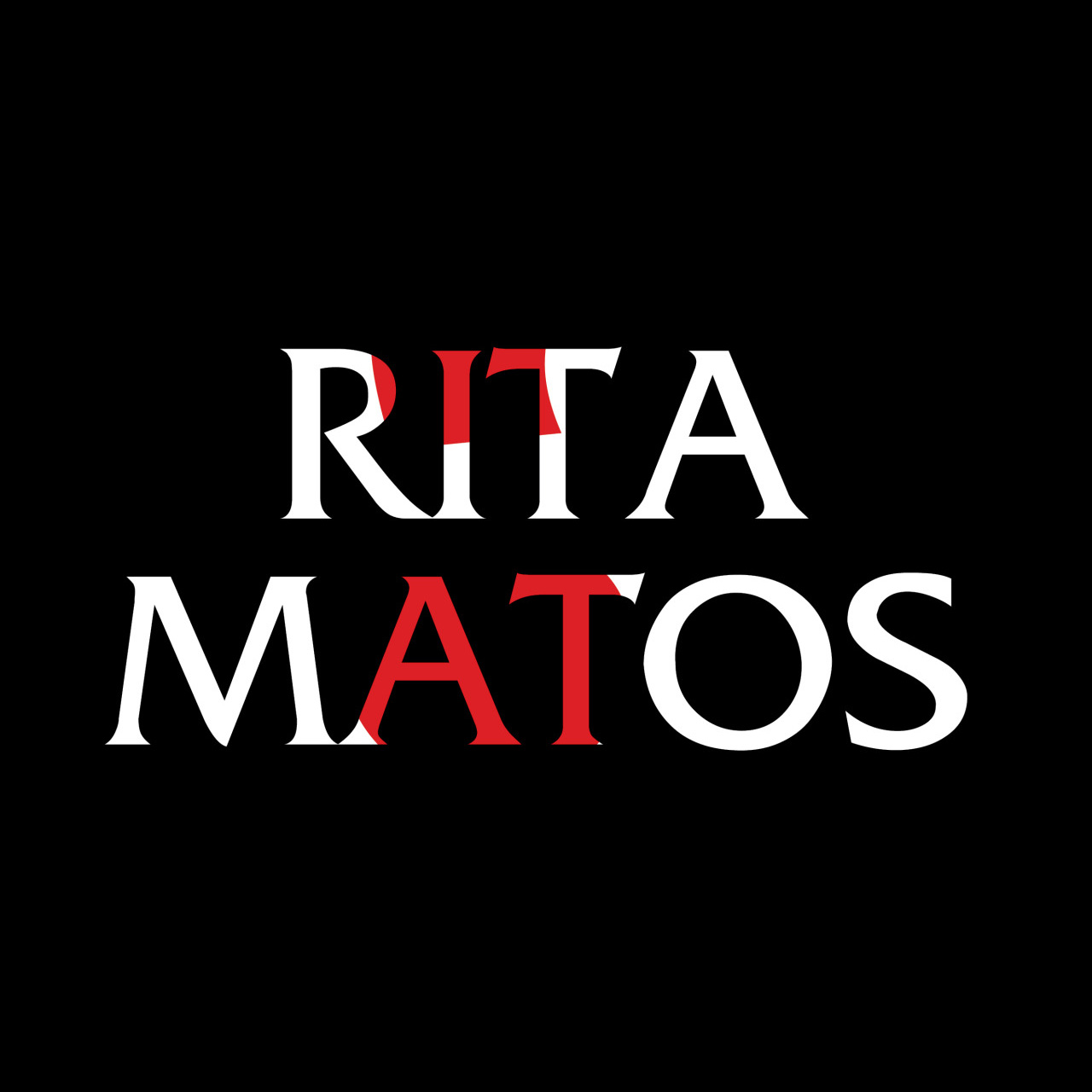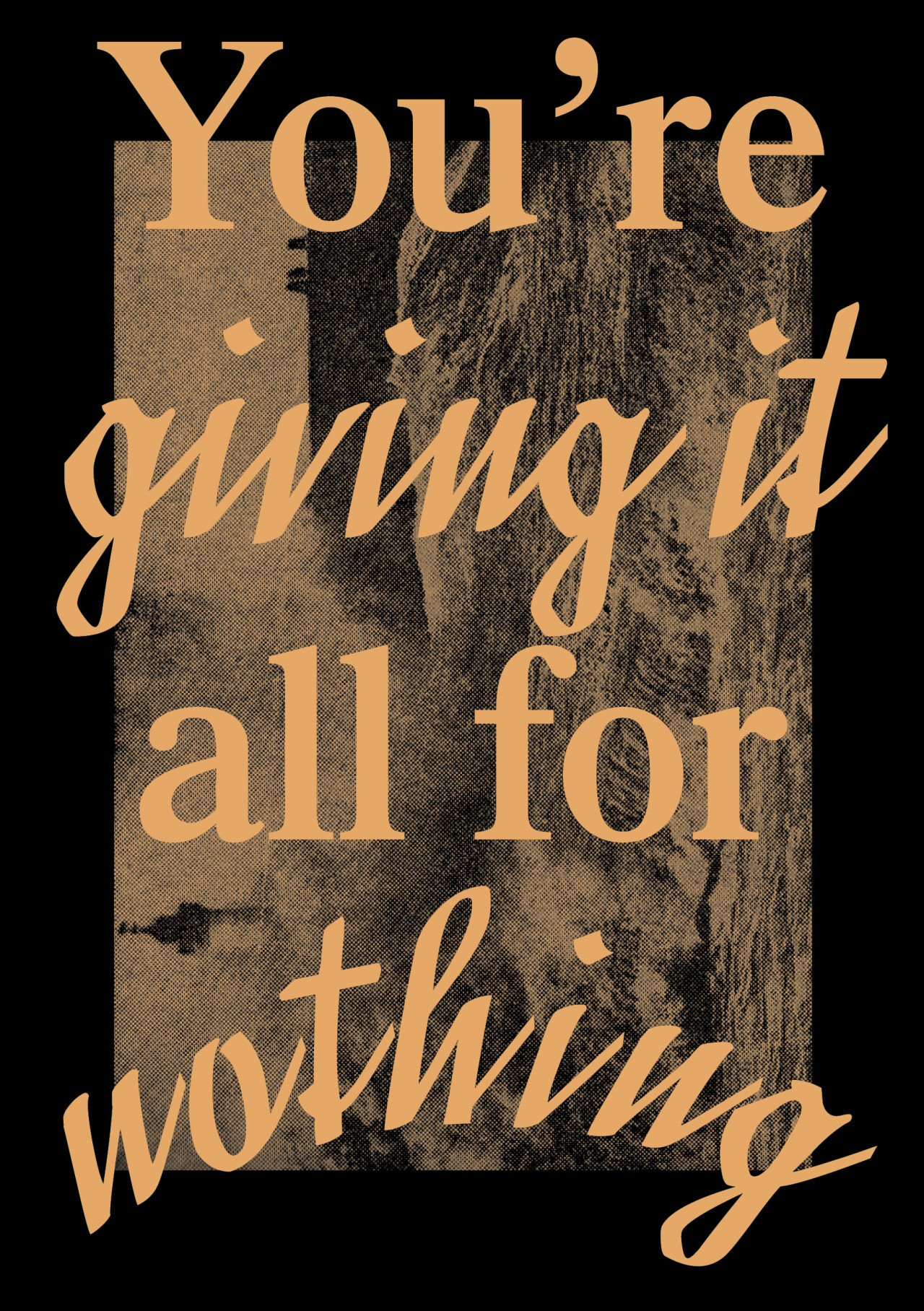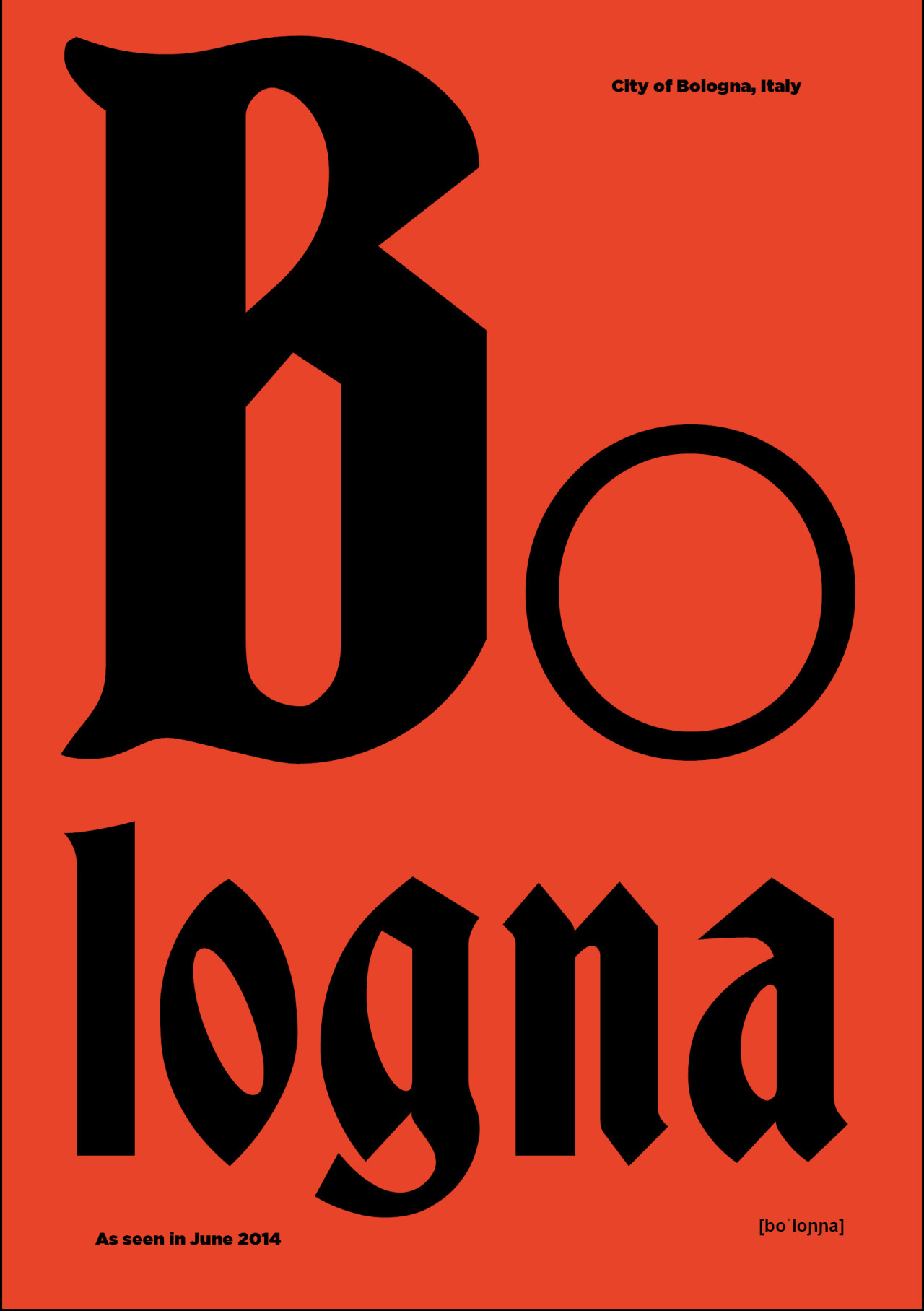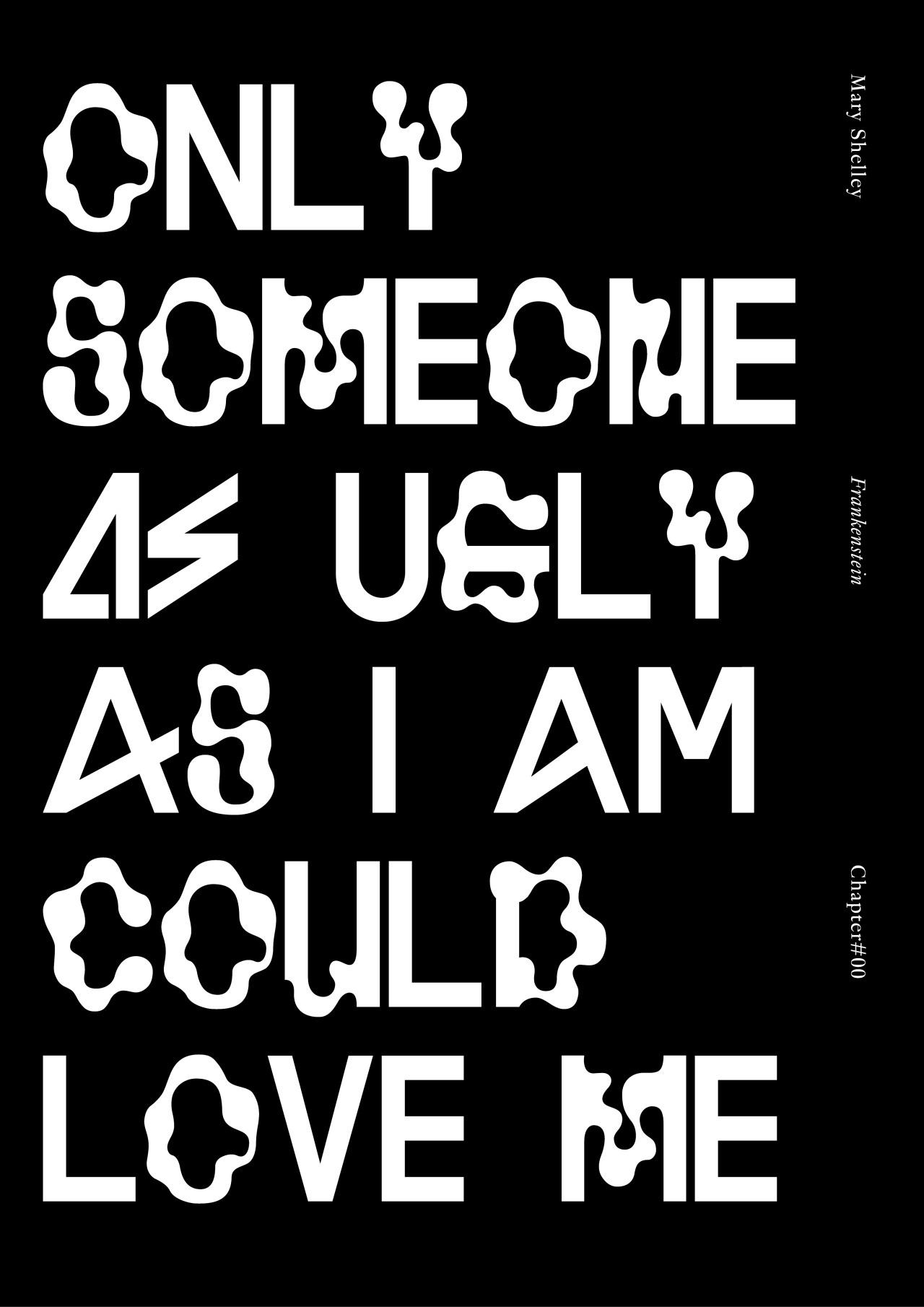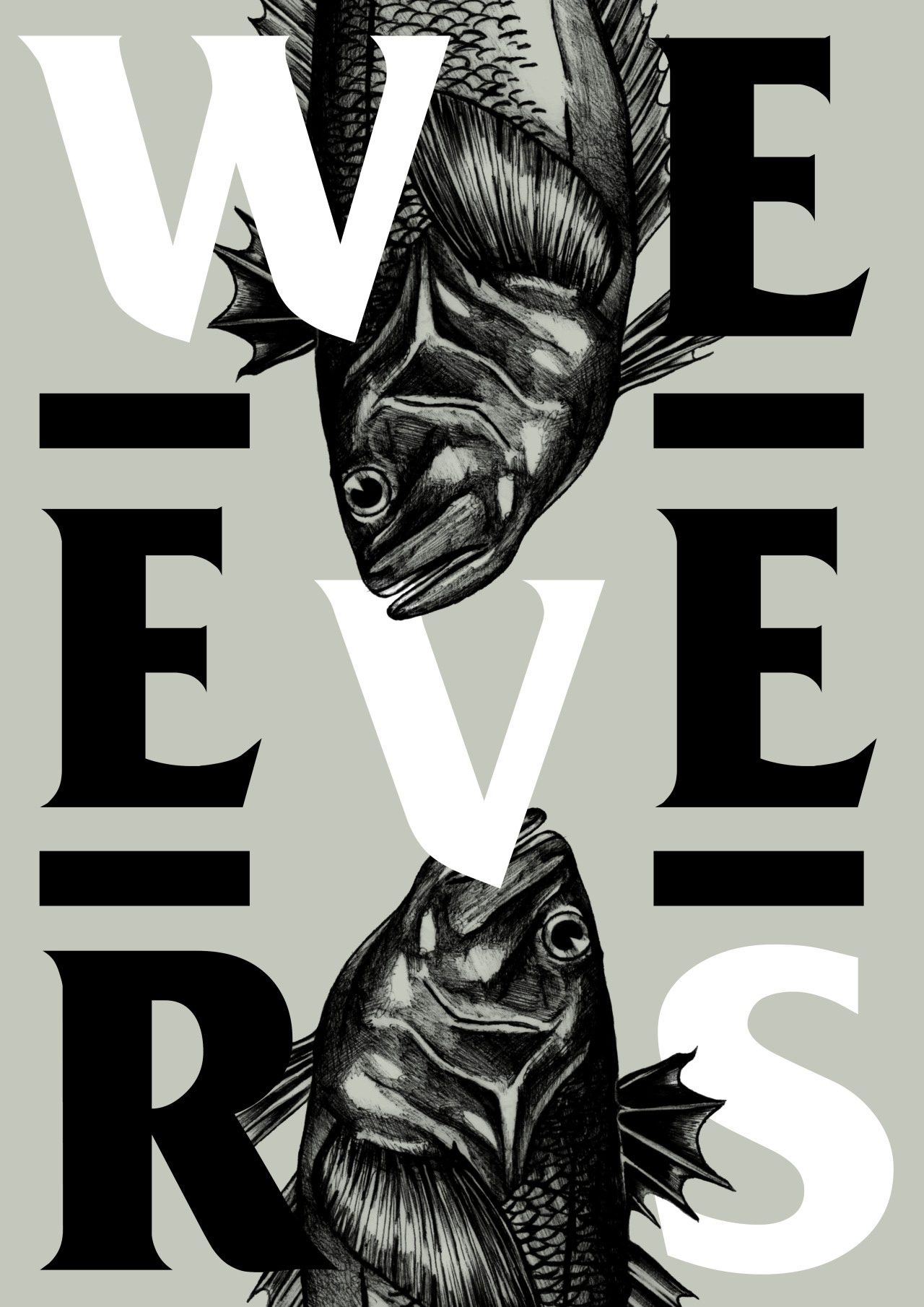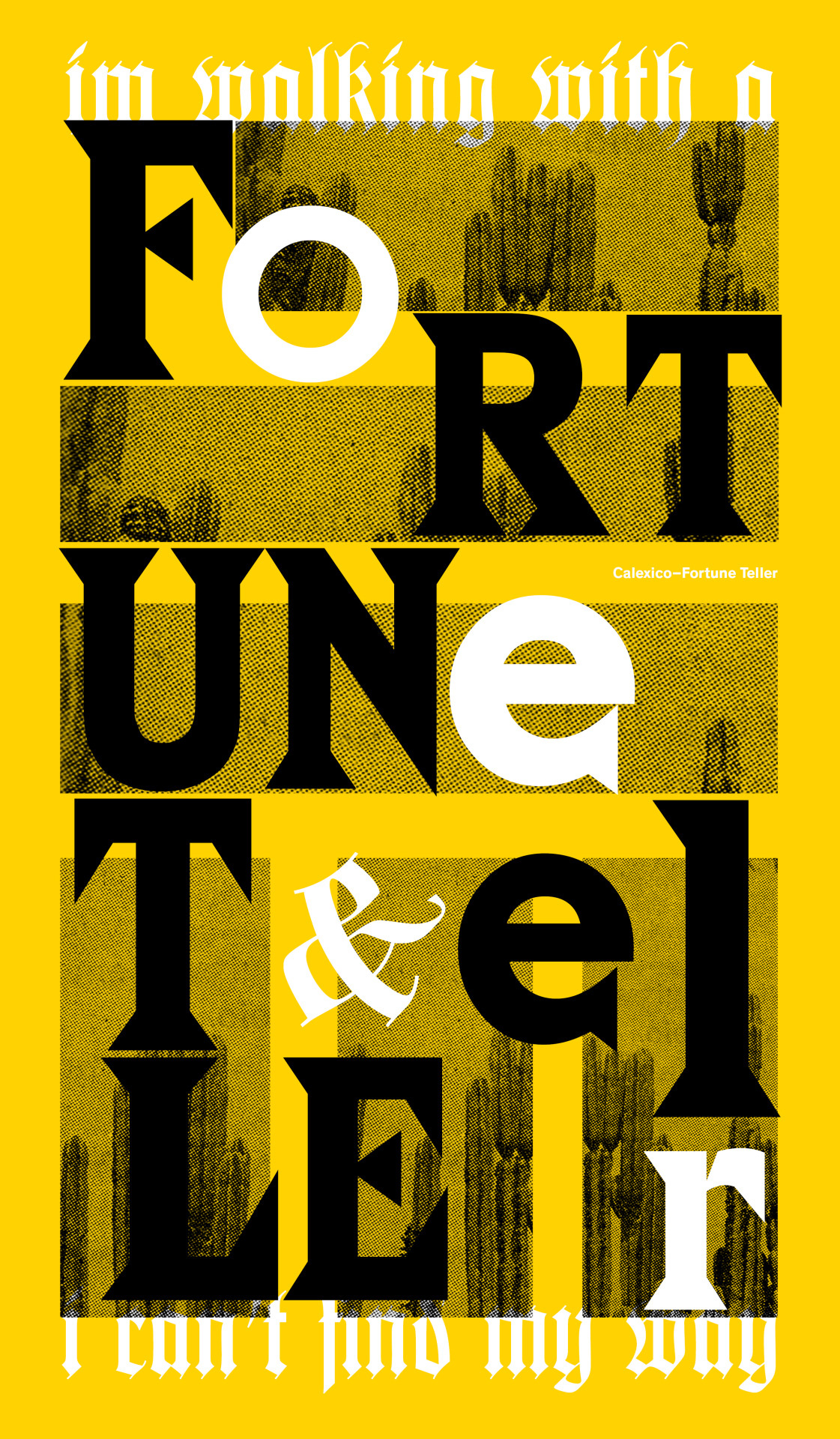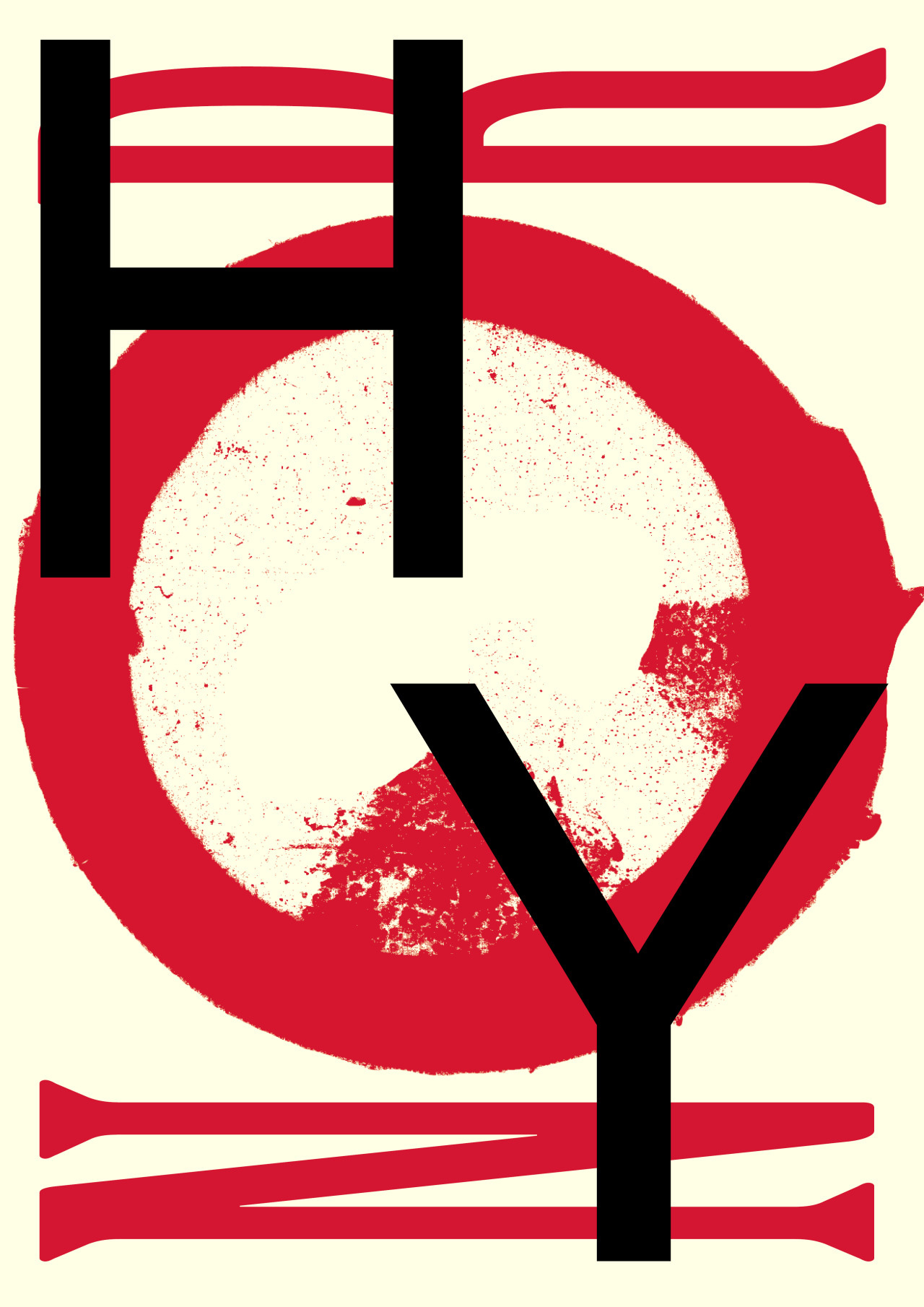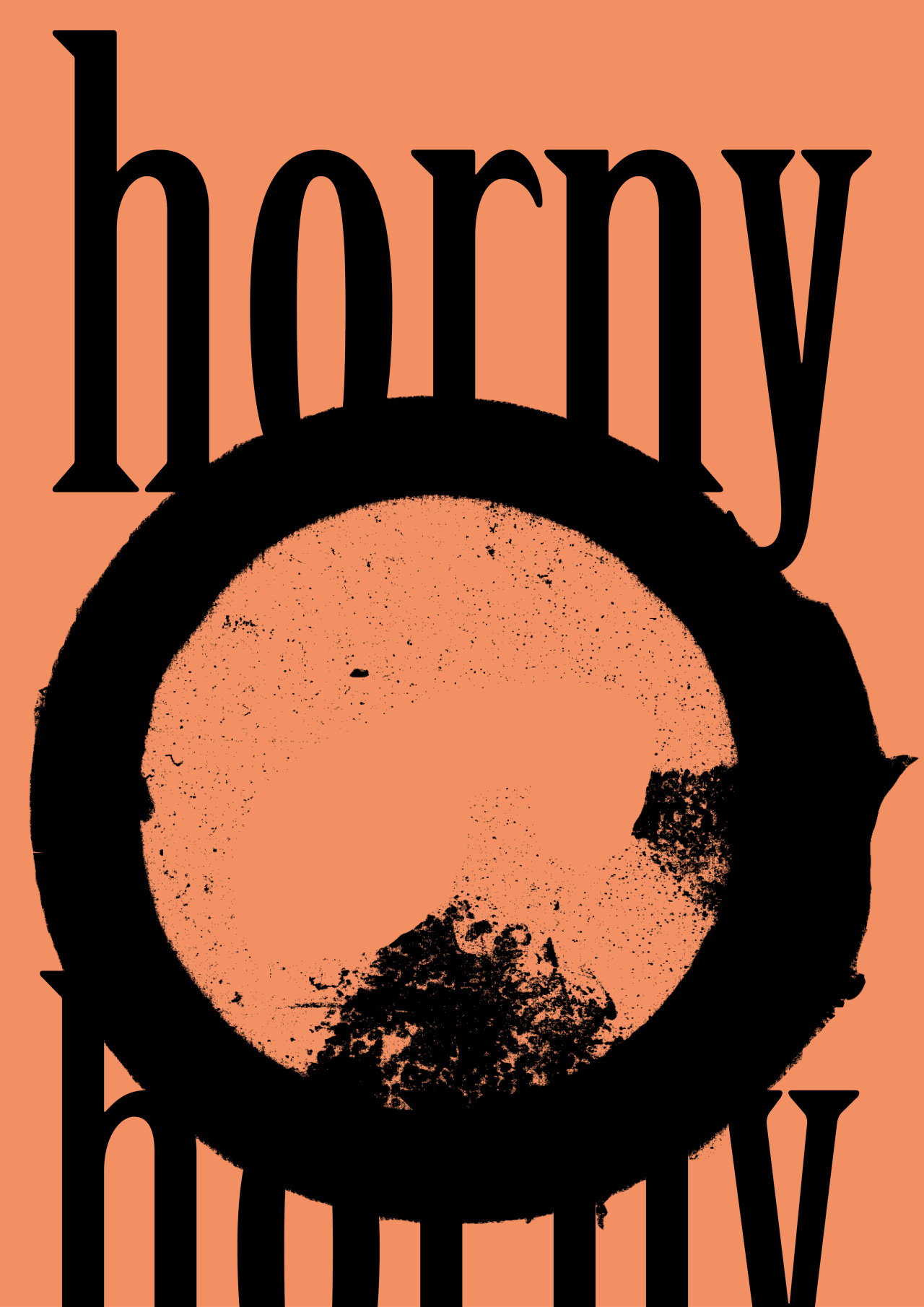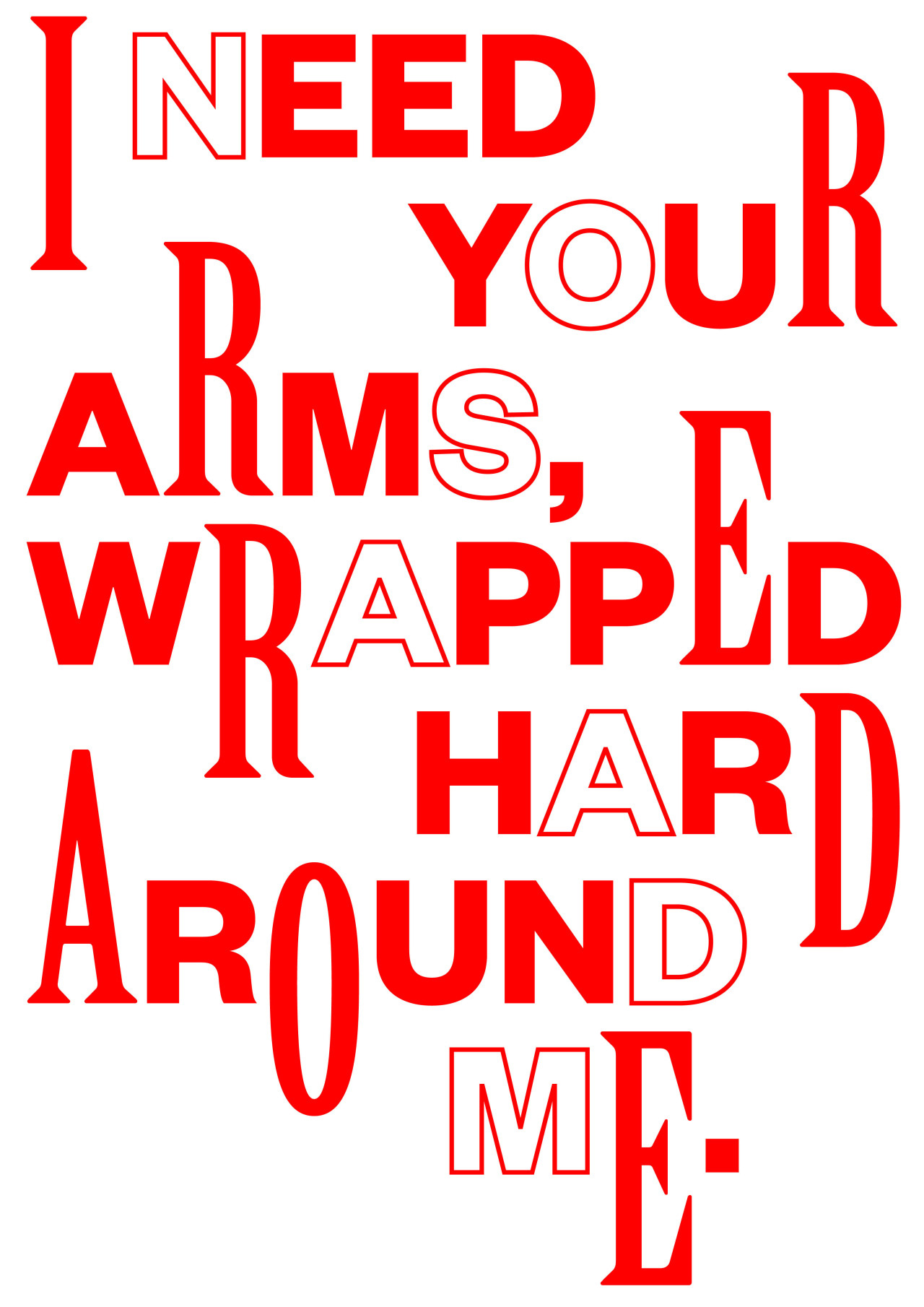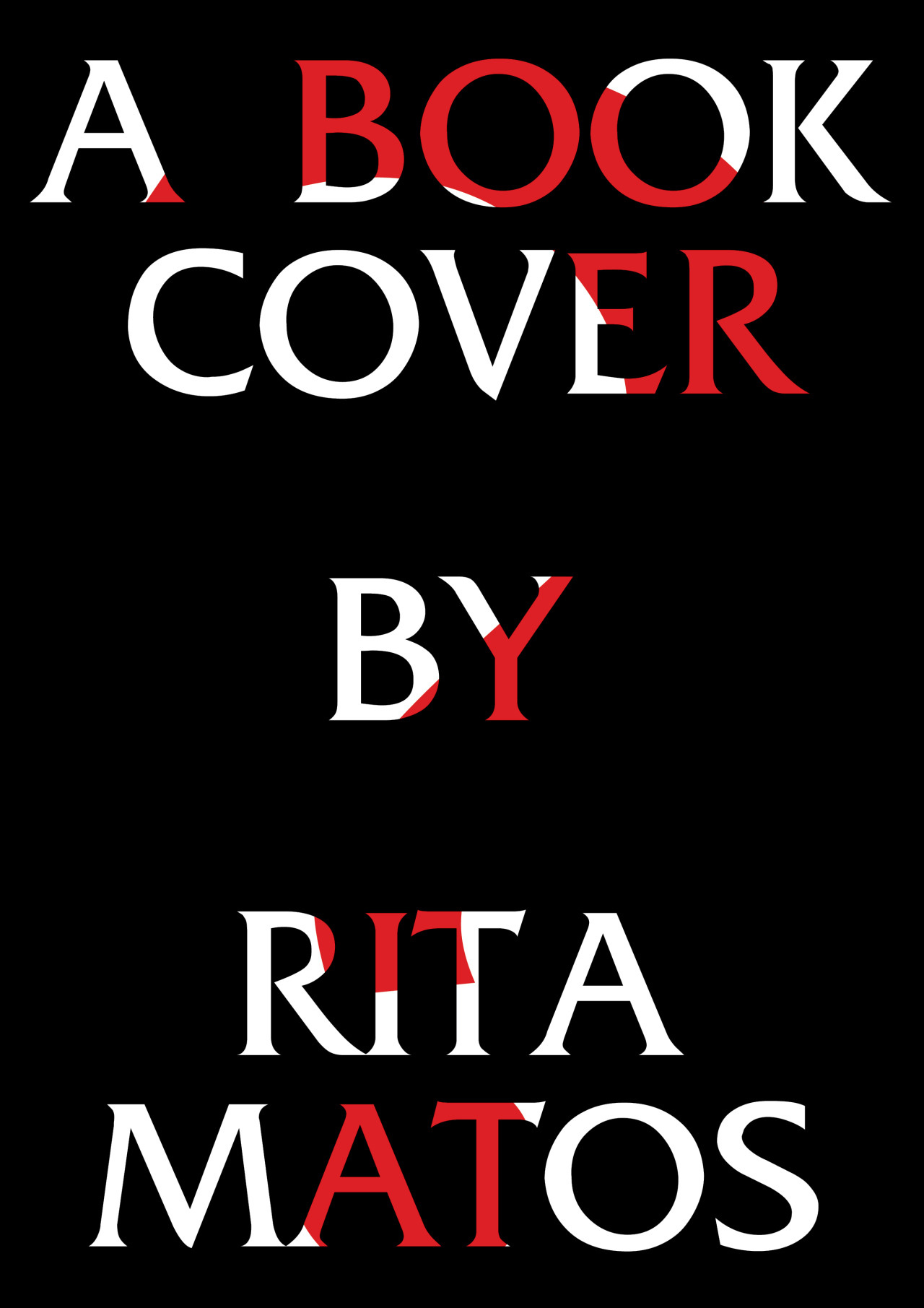
Rita Matos is a Millenial to keep your typographic eyes on
Born and raised where she still resides, in the suburbs of Lisbon, Rita Matos is a graphic designer that fell in love with the letterform gradually. “I always had a strong instinct to write and draw like an idiot” she told us. “But I didn’t realize what typography was as a discipline until I was in design school” she adds. “To be fair, I just started exploring it in more than one ways. I guess we all get involved with typography at some level even if we don’t know what it really stands for”. Her portfolio is mindblowing, playful and skillful, feminine and masculine, bold and sleek so one has to wonder what this Lisboan will provide to our senses once she is fully bloomed.
Having graduated from Lisbon’s Faculty of Fine Arts only a year ago, she is a freshman -literally- so we had to know which typeface was her first love at first sight. “My relationship with typefaces is a passionate one. I guess I’m a curious person, I get bored pretty easily. So, this element in me keeps me searching for new things to use each and every time. I’m more interested in the idea that needs to be expressed, than in the typeface itself. However, whilst I was studying Communication Design where I had my first contact with what fonts really are all about, I remember over-using mostly Union, F Grotesque, Aperçu and similar ones”.
Matos is a Millenial that will not idolize people. “I do like different things about different people I got to study or discover. That goes from admiring both the precision and elegance of Tschichold and, at the same time, the playfulness of Weingart. I’m very interested in the use of typography in an art context, like in the case of Lawrence Weiner’s work or Ed Ruscha’s. I’m also fond of contemporary foundries like Radim Pesko, Colophon and Klim” she comments. When asked which she considers her first big break in graphic design and typography she answers earnestly. “I’m only 23 and I graduated no more than a year and an half ago. Even if I’ve been working as a graphic designer since, I think I couldn’t really say I have a “career” yet. I’m more at the beginning of one, which is both stressful and interesting. I’m driven by it”.
A woman that explores her limits is a woman with a bright future. “I always tend to hate most of the things I’ve done, it became a habit after some time, to be honest. There’s a lot of things in my portfolio I’m not that proud of but I’m trying to appreciate this process and to be more patient about it. Trial/Error… Trial/ Error…” But there is a project she likes most of all. “If I really have to choose a highlight of what I’ve done so far I would choose an exhibition called “Acto.3 – Márcio Nazareth” which was a tribute to the work and life of a deceased friend and classmate who was a great graphic designer. It had a particular interest for my personal relationship with it, but was also an enriching experience at a professional level. I worked with very little resources collaborating with all kinds of people to make it happen. It ended to be the most gratifying thing I’ve done so far, because I felt I could contribute with what I know about this weird thing called design. I helped creating something that was meaningful and interesting for those involved and those who got to see it. I think that’s the kind of thing that makes it worth. And it sure ended up being a challenge making an exhibition in an old out of commission gunpowder factory”.
“If I was a typographic symbol I would definitely be an interrogation point, or anything as confused as that”
Rita Matos is a weird youngster. “If I was a typographic symbol I would definitely be an interrogation point, or anything as confused as that” she told us. At 23, she is grounded and ready to explore the limits of her talented nature. “My short-term plan for the future is trying not to short circuit myself with the anxiety of trying to make too much plans and instead I try to focus on the now, as cliché as it may sound. When I eventually grow up I’m striving to be a person who would always have interesting things to do in life and to talk about” she adds. “I think the best way to end this conversation is definitely by making a very bad joke” she says. Well, the joke is definitely not on her.